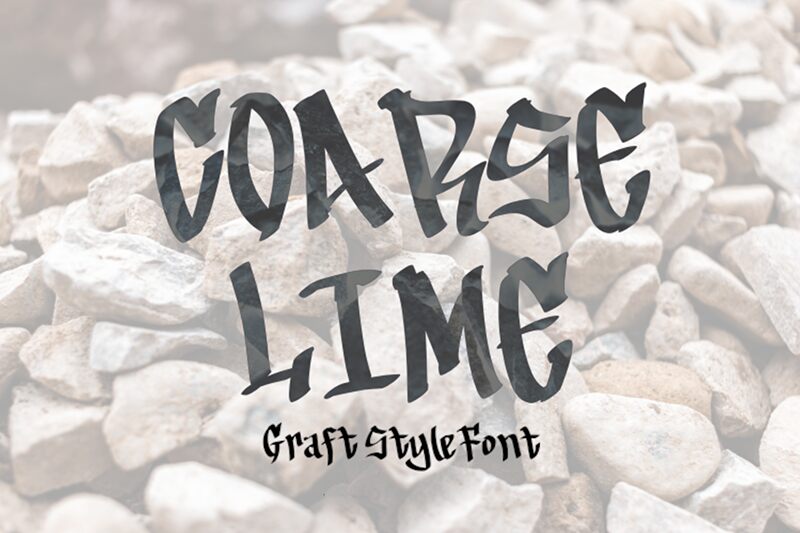
Coarse Lime font by SSI.Scraps is a graffiti-inspired typeface that brings forth rebellious energy with an edgy, expressive design. Its condensed appearance combines grotesque elements and distressed aesthetics for a unique look that captures attention effortlessly. A free display font, it grabs reader’s attention integrating well to suit various artistic projects.
Use cases: album covers, graffiti art installations, event posters, book covers, corporate branding materials, flyers and brochures, marketing campaigns , murals apparel printing etc.